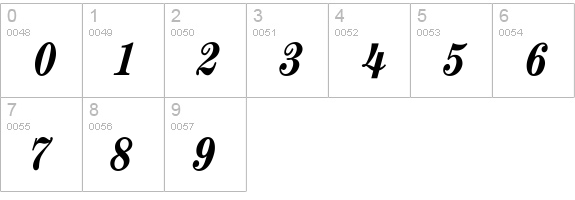
CenturyCondBoldItalic Font Details
CenturyCondBoldItalic is a striking and elegant font that exudes sophistication and style. Its bold and italicized design adds a touch of modern flair to any project, making it perfect for headlines, titles, and branding. The font's strong and graceful strokes create a sense of confidence and professionalism, making it ideal for both print and digital designs. What sets CenturyCondBoldItalic apart is that it is available for free download at FontsMarket.com. This means that you can easily access this gorgeous font to enhance your creative projects without any cost. Whether you're working on a website, a poster, a logo, or any other design project, CenturyCondBoldItalic will elevate your work with its distinctive and eye-catching appearance. Download it today and add a touch of elegance to your designs with this beautiful font.